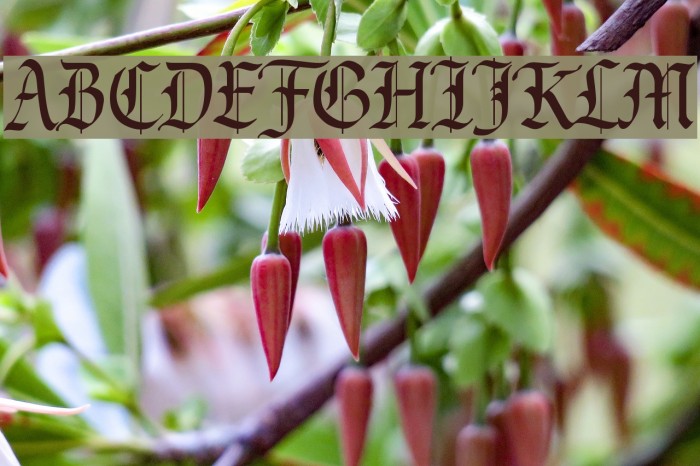
CAC Valiant Font
This font features a classic blackletter style, characterized by its ornate and intricate design. The uppercase letters exhibit sharp, angular strokes with elaborate serifs and decorative elements, reminiscent of medieval script. The lowercase letters maintain a similar aesthetic, with a slightly more condensed form, enhancing readability while preserving the traditional look. The numerals are bold and consistent with the overall style, providing a cohesive appearance. Special characters are designed with the same attention to detail, making this font suitable for projects that require a historical or gothic touch.
A decorative blackletter font with intricate, medieval-inspired design.
- Proposed Projects: Ideal for historical documents, gothic-themed designs, book covers, and event invitations.
- Category: Blackletter
- Overall Style: Vintage
- Use Case: Logos, Headlines, Decorative text